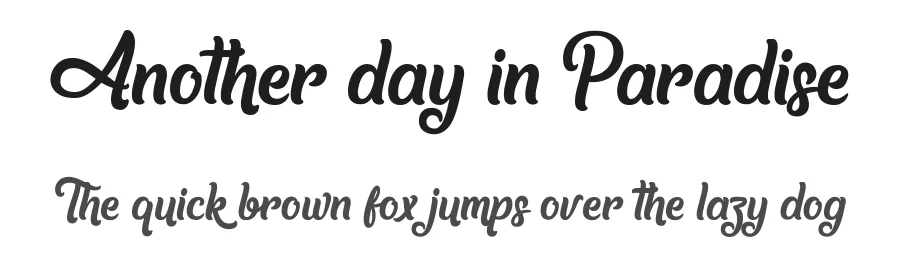
About Very You Font
SPECIAL SYMBOLS
Type * (asterisk) for the heart frame
| Designer | Misti's Fonts |
Very You ships with 2 OpenType features you can switch on in apps that support them (Illustrator, InDesign, Affinity, Figma, CSS font-feature-settings).
Very You supports 280 languages.
Very You Font is a script font that shines as a display or heading face. Pair it with a clean sans-serif or serif font for body text β the contrast creates a clear hierarchy while the two styles stay balanced and easy to read.